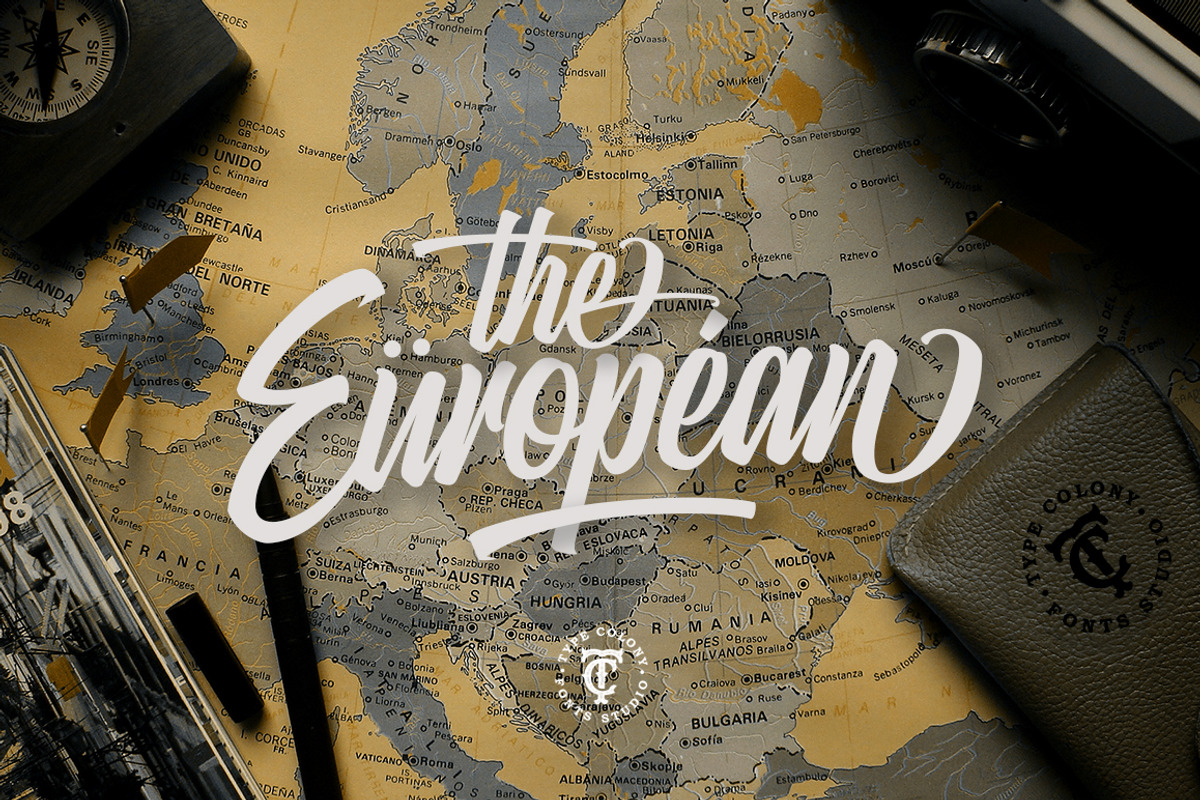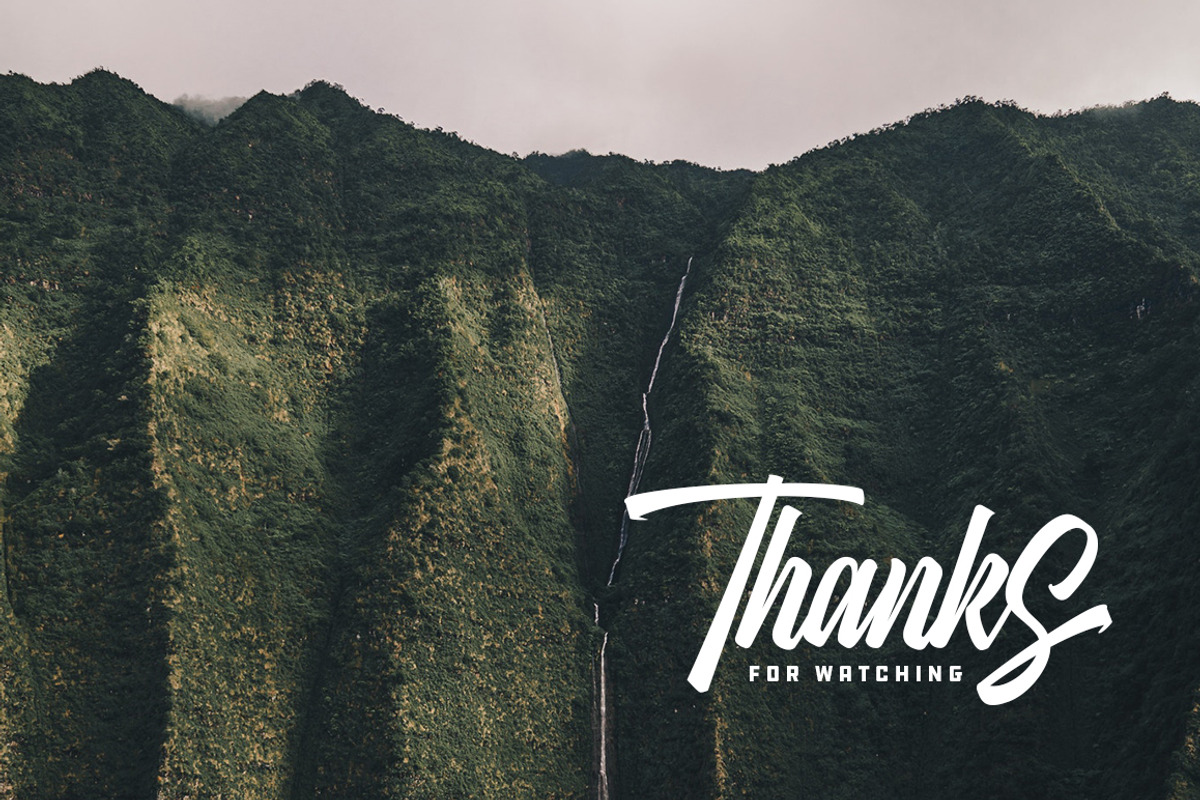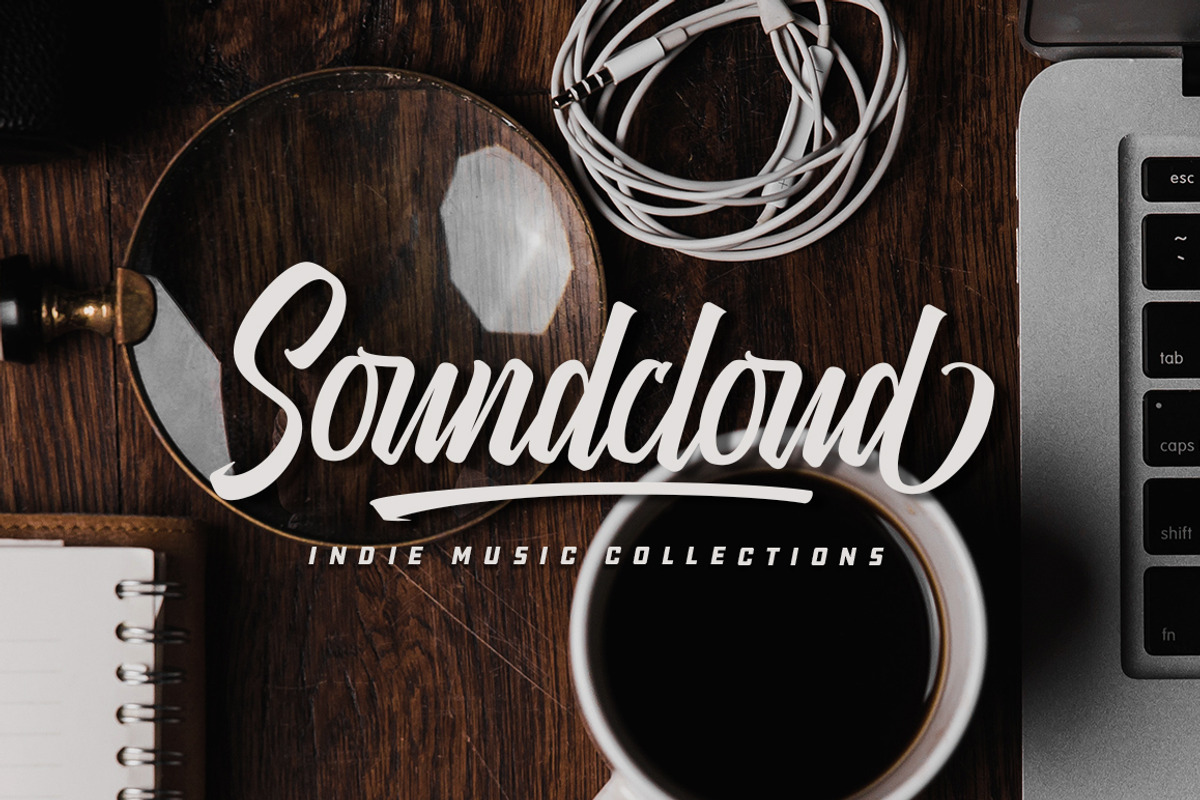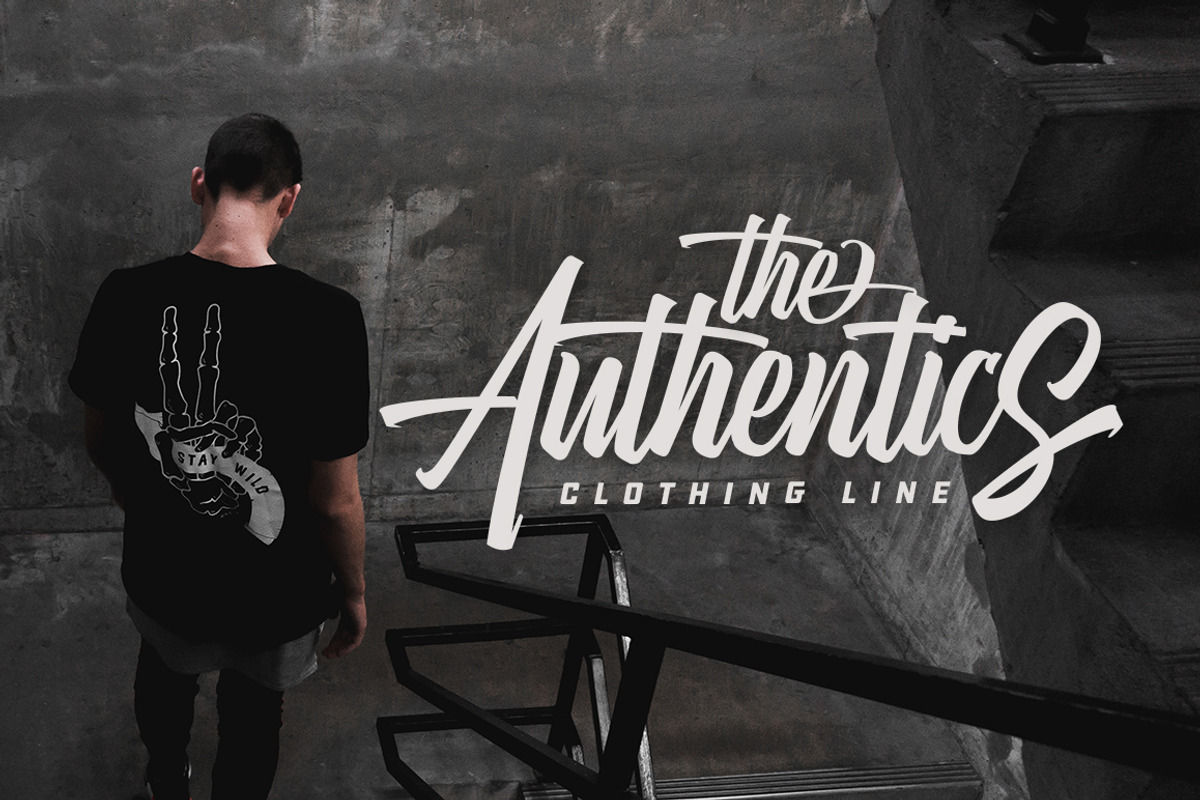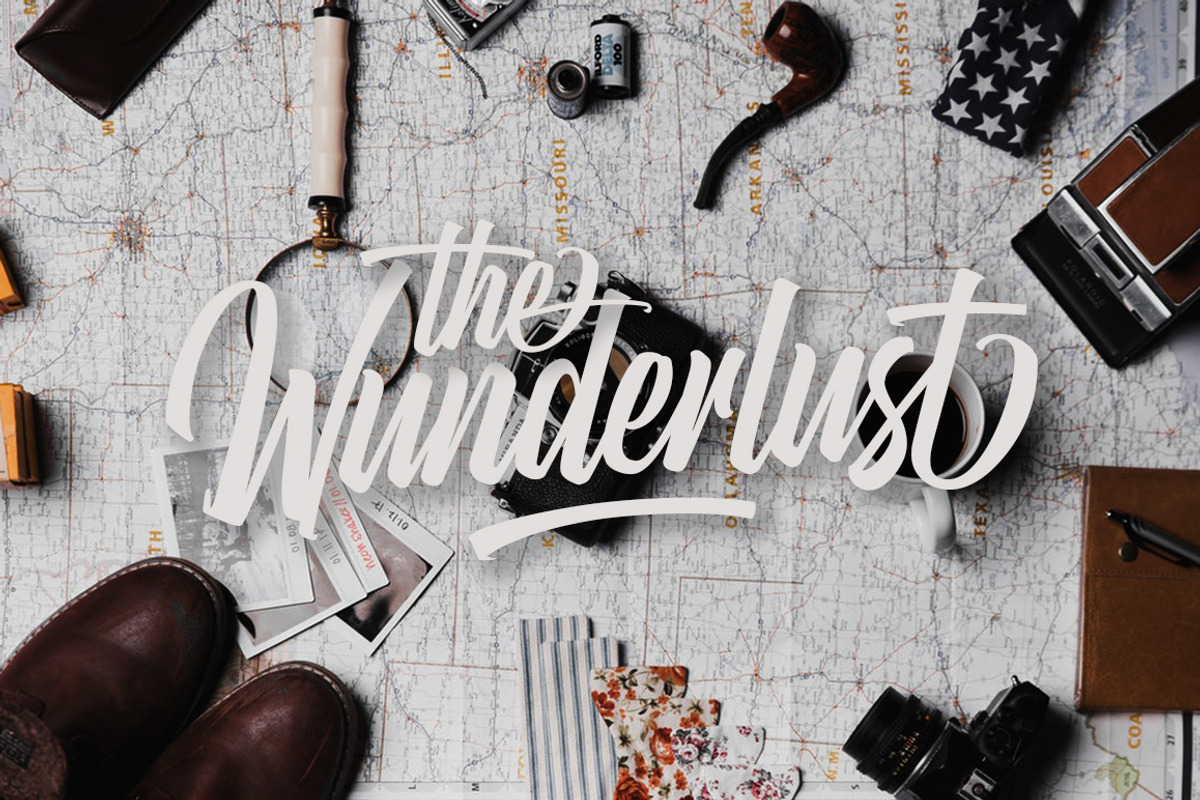
Heatslide
INTRODUCING HEATSLIDE SCRIPT
Heatslide Script is a casual script typeface with stylist style, clean, and great movement this typeface and allow you to make lettering and logotype quickly and easily. This typeface is inspired by brush lettering, street art, and urban culture that feel so wild, strong and classy. This typeface is suitable to use for any project such as Logotype, Letterhead, Poster, Apparel Design, Label and etc.
Heatslide have so many variations on Stylistic Styles, Ligatures, Discreationary Ligature, and Alternative Character. Also include multilingual support for the following languages; English, French, Italian, Spanish, Portuguese, German, Swedish, Norweigen, Danish, Dutch, Hungarian, Finnish, Polish, Indonesian, Filipino, Malay